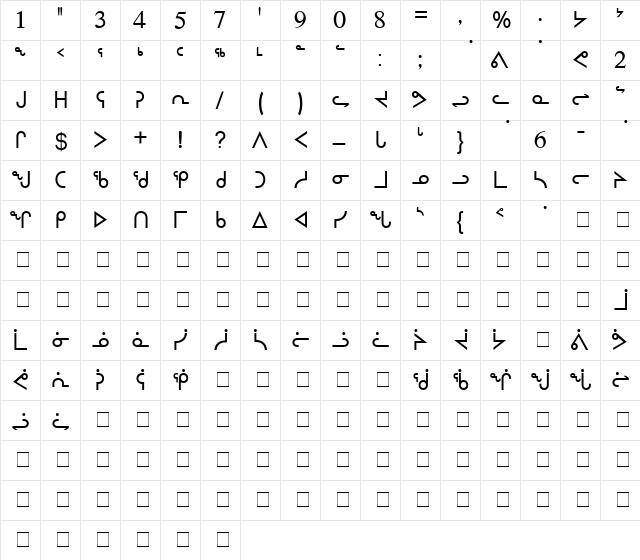
Tunngavik Regular
Design Context for Tunngavik Typeface
Tunngavik is a composed and adaptable typeface that performs quietly and consistently across a wide range of design contexts.